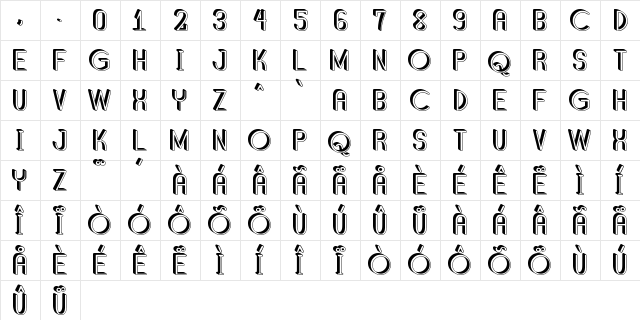
Shadded South Regular
Design Context for Shadded South Typeface
Shadded South is a composed and adaptable typeface that performs quietly and consistently across a wide range of design contexts.